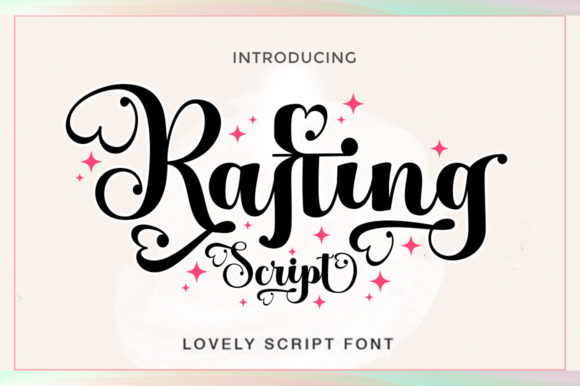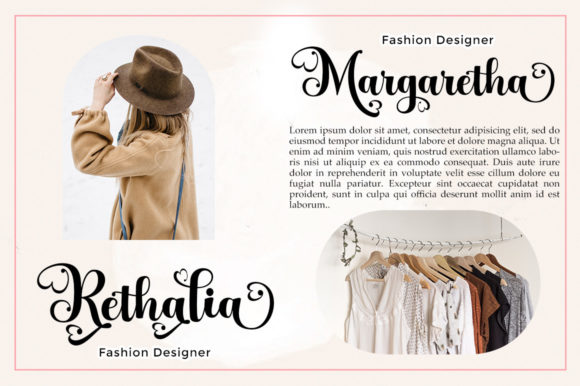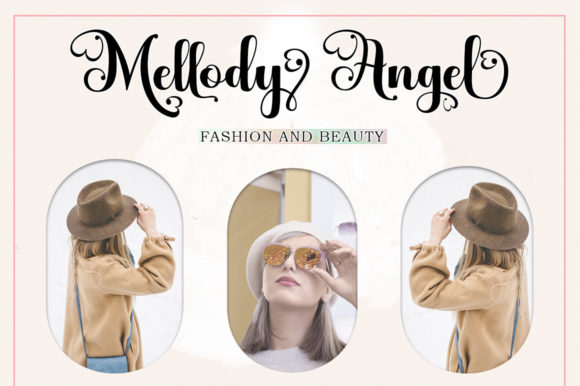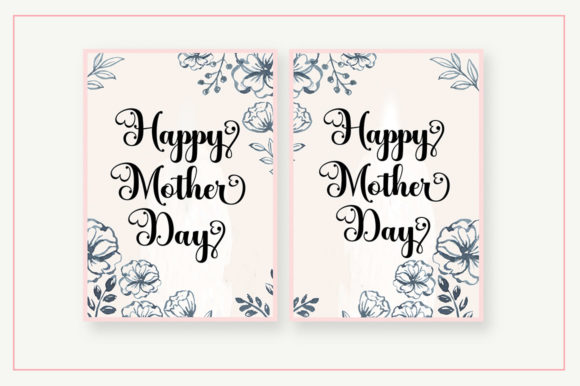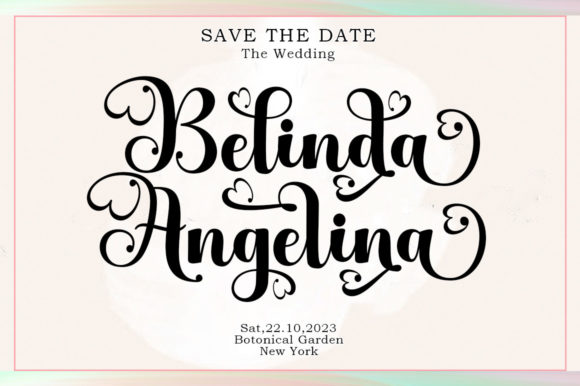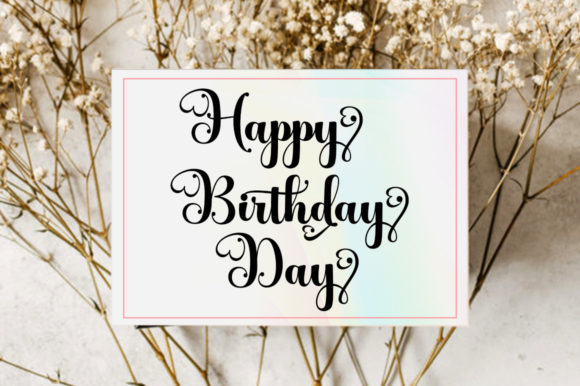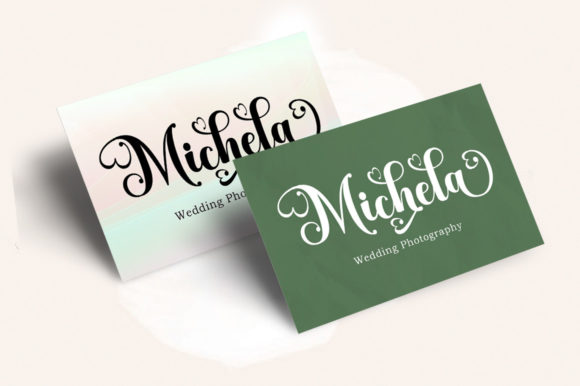
Rafting Script Font
About Rafting Script Font
Rafting Script emerges as a romantic and distinctly round-lettered script font, characterized by its beautiful and balanced characters that seamlessly complement a diverse range of design styles. With its elegant curves and graceful strokes, this font adds a touch of sophistication to any project, making it an ideal choice for a wide variety of design applications.
One of the standout features of Rafting Script is its PUA encoding, which grants users effortless access to an extensive collection of glyphs and swashes. This allows for easy customization, empowering designers to infuse their creations with unique flourishes and embellishments that enhance the overall aesthetic and visual appeal.
Whether you’re designing wedding invitations, branding materials, posters, social media graphics, or any other type of project, Rafting Script offers versatility and elegance that is sure to leave a lasting impression. Its romantic and round-lettered design adds a sense of warmth and intimacy, while its distinct character ensures that your designs stand out from the crowd.
Confidently incorporate Rafting Script into your design arsenal and discover the endless creative possibilities it offers. With its beautiful and balanced characters, this font brings a sense of harmony and sophistication to every project, elevating your designs to new heights of elegance and refinement.
From the delicate swirls of wedding stationery to the bold statements of branding materials, Rafting Script adds a touch of romance and charm to any design endeavor. Its versatile nature makes it the perfect choice for conveying sentiments of love and affection, while its distinctive style ensures that your message is conveyed with clarity and impact.
Whether you’re a seasoned designer or a novice creator, Rafting Script offers a user-friendly experience that allows you to unleash your creativity and bring your vision to life. With its extensive range of glyphs and swashes, the possibilities are endless, enabling you to customize each design to your exact specifications and preferences.
In conclusion, Rafting Script is more than just a font—it’s a versatile and elegant tool that invites you to explore the beauty of typography and express your creativity in new and exciting ways. Embrace Rafting Script today and discover the transformative impact it can have on your design projects.